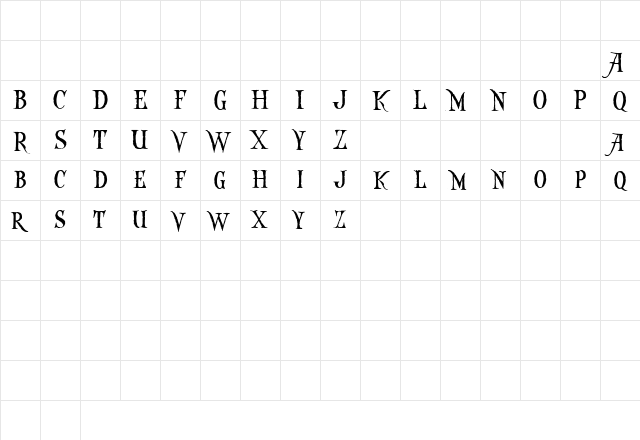
Captain Kidd Demo Regular Free Font
Captain Kidd Demo Regular
Design Context for Captain Kidd Demo
Captain Kidd Demo is a composed and adaptable typeface that performs quietly and consistently across a wide range of design contexts.